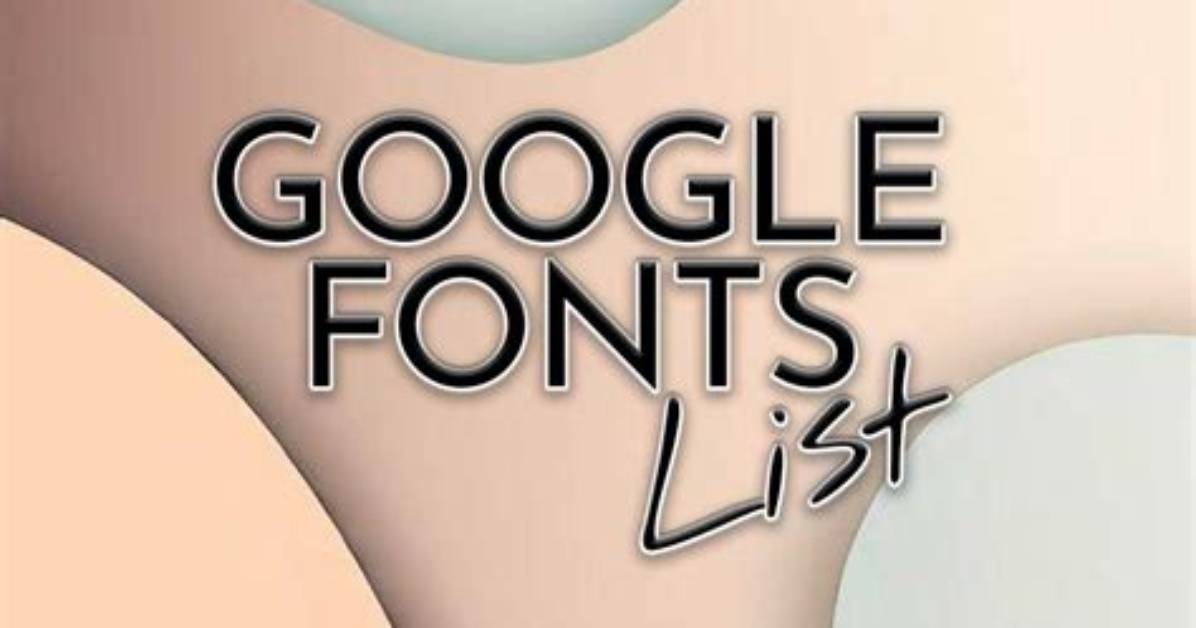
What is the font of Google?
Product Sans is a Futura-like font that Google designed in 2015 for branding purposes; you may recognize it from the current Google logo, which replaced the old, serif-font logo also in 2015. Roboto resembles Arial or Helvetica; Google has been iterating on the font since 2011.
What fonts are available in CSS?
| Generic family | Font family |
|---|---|
| Serif | Times New Roman Georgia |
| Sans-serif | Arial Verdana |
| Monospace | Courier New Lucida Console |